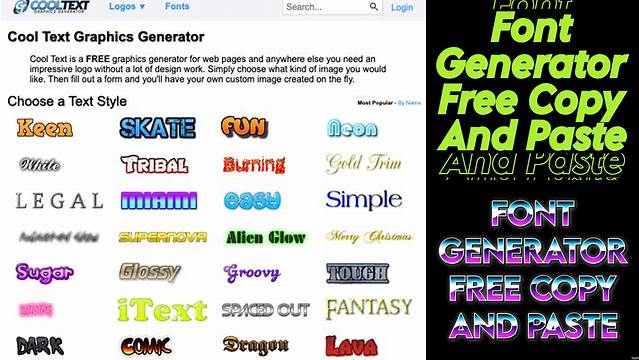
Best Free Font Generator For Copy And Paste: Create Unique Text!
Hey guys! Ever wanted to spice up your social media posts, school projects, or just add a little flair to your online presence? Well, you're in the right place! We're diving deep into the world of font generators that let you copy and paste awesome-looking text. No need to download anything or mess with complicated software. Let's get started!
Cool Text Generator Copy and Paste
Let's kick things off with the basics. A cool text generator allows you to create fancy, stylish text that you can easily copy and paste into your favorite apps and platforms. These generators come in handy when you want to make your content stand out, whether it's on Instagram, Twitter, Facebook, or even in your emails. Imagine using a unique font for your Instagram bio or creating eye-catching headlines for your blog posts. The possibilities are endless! These tools often include a variety of styles, from cursive and bold to wacky and futuristic, catering to diverse tastes and needs. The best part? They are incredibly user-friendly. All you have to do is type in your text, choose a style, and copy the result. Then, paste it wherever you need it! These generators save you time and effort, allowing you to produce visually appealing text without the need for complex design software. Furthermore, many cool text generators offer additional customization options, such as adjusting the size, color, and spacing of the text to achieve the perfect look. Whether you're a social media influencer, a content creator, or simply someone who enjoys adding a touch of creativity to their online interactions, a cool text generator can be an invaluable tool in your arsenal.
Fancy Font Generator for Copy and Paste
If you're looking to add a touch of elegance and sophistication to your text, a fancy font generator is just what you need. These generators offer a range of ornate and decorative fonts that can transform ordinary text into something truly special. Think calligraphy-inspired scripts, vintage-style lettering, and other elaborate designs that exude class and charm. Fancy fonts are perfect for invitations, greeting cards, website headers, and any other context where you want to make a statement. The key to using fancy fonts effectively is to choose styles that complement the overall aesthetic of your project. Overdoing it with too many elaborate fonts can make your content look cluttered and difficult to read. Instead, opt for a few carefully selected fancy fonts that enhance the visual appeal without sacrificing clarity. Furthermore, consider the legibility of the fonts, especially when using them for longer blocks of text. While fancy fonts can be visually stunning, they may not always be the most practical choice for body text. Experiment with different combinations of fonts and styles to find the perfect balance between aesthetics and readability. With a little creativity, you can use fancy font generators to create stunning visuals that capture attention and leave a lasting impression.
Stylish Font Generator for Copy and Paste
For those aiming to inject a bit of modern flair into their text, a stylish font generator is the way to go. These generators focus on trendy, contemporary font styles that are perfect for social media, branding, and digital marketing. From sleek sans-serif fonts to bold display fonts, you'll find a wide range of options to suit your unique style. Stylish fonts are all about making a statement and conveying a sense of sophistication and innovation. When choosing a stylish font, consider the overall message you want to communicate. A minimalist sans-serif font can convey a sense of simplicity and modernity, while a bold display font can grab attention and create a sense of excitement. Think about the context in which the font will be used and how it will resonate with your target audience. Stylish font generators often offer a range of customization options, allowing you to fine-tune the appearance of the text to match your brand identity. You can adjust the size, color, spacing, and other attributes to create a cohesive and visually appealing look. Furthermore, many stylish font generators provide previews of the text in different contexts, allowing you to see how it will look on various devices and platforms. This ensures that your text looks its best, regardless of where it's displayed.
Unique Font Generator Copy and Paste
Tired of seeing the same old fonts everywhere? A unique font generator can help you break free from the ordinary and create text that truly stands out. These generators offer a selection of unconventional and distinctive font styles that are sure to grab attention. Think hand-drawn fonts, pixelated fonts, and other quirky designs that add personality and character to your text. Unique fonts are perfect for branding, logos, and other applications where you want to create a memorable and distinctive visual identity. When using unique fonts, it's important to strike a balance between originality and readability. While you want your text to stand out, you also want to ensure that it's easy to read and understand. Avoid fonts that are too abstract or difficult to decipher, especially when using them for longer blocks of text. Instead, opt for fonts that are visually interesting but still legible at a glance. Furthermore, consider the overall tone and message you want to convey. A playful hand-drawn font can be perfect for a children's website, while a gritty pixelated font can add a touch of nostalgia to a retro-themed project. With a little creativity, you can use unique font generators to create visuals that are both eye-catching and effective.
Aesthetic Font Generator Copy and Paste
If you're all about creating visually pleasing and harmonious designs, an aesthetic font generator is your new best friend. These generators focus on fonts that are specifically designed to be beautiful and aesthetically pleasing. Think soft, flowing scripts, elegant serifs, and other refined styles that exude grace and sophistication. Aesthetic fonts are perfect for creating a sense of calm, serenity, and visual harmony in your designs. When choosing an aesthetic font, consider the overall mood and atmosphere you want to create. A light, airy font can convey a sense of openness and tranquility, while a bold, dramatic font can add a touch of excitement and intrigue. Think about the context in which the font will be used and how it will complement the other elements of your design. Aesthetic font generators often offer a range of customization options, allowing you to fine-tune the appearance of the text to match your personal style. You can adjust the size, color, spacing, and other attributes to create a cohesive and visually appealing look. Furthermore, many aesthetic font generators provide previews of the text in different contexts, allowing you to see how it will look on various devices and platforms. This ensures that your text looks its best, regardless of where it's displayed.
Free Font Style Generator Copy and Paste
Looking for a cost-effective way to create stylish text? A free font style generator is the perfect solution. These generators offer a wide range of font styles that you can use for free, without having to pay for expensive software or fonts. From basic sans-serif fonts to more elaborate display fonts, you'll find a variety of options to suit your needs. Free font style generators are ideal for personal projects, social media posts, and other applications where you don't want to spend a lot of money on fonts. While free font style generators may not offer the same level of customization and quality as paid options, they can still be a great resource for creating visually appealing text. Be sure to check the licensing terms of the fonts you use to ensure that you're using them legally. Some free fonts may only be licensed for personal use, while others may be licensed for commercial use as well. Furthermore, be aware that some free font style generators may contain ads or other unwanted software. Be sure to download fonts from reputable sources to avoid any potential security risks. With a little caution, you can use free font style generators to create stylish text without breaking the bank.
Online Font Generator Copy and Paste
For ultimate convenience and accessibility, an online font generator is the way to go. These generators are web-based tools that you can use directly in your browser, without having to download or install any software. Simply visit the website, type in your text, choose a style, and copy the result. Online font generators are perfect for users who want to create stylish text on the go, without being tied down to a specific device or operating system. The best part about online font generators is that they're often compatible with a wide range of browsers and devices. Whether you're using a desktop computer, a laptop, a tablet, or a smartphone, you can access these tools and create stylish text with ease. Furthermore, online font generators often offer a variety of features and options, such as the ability to preview the text in different contexts, adjust the size and color of the text, and even download the text as an image. This makes them a versatile and convenient tool for creating visually appealing content. However, be aware that some online font generators may require you to create an account or sign up for a subscription. Be sure to read the terms of service before using any online font generator to avoid any unwanted surprises.
Best Font Changer Copy and Paste
Sometimes, you might just want to quickly swap out a font for something different without having to retype everything. That's where the best font changer comes in handy! These tools let you easily change the font of existing text with just a few clicks. They're super useful for tweaking documents, presentations, or even social media posts where you want to give your words a fresh new look. Imagine you've written a blog post but the font just isn't working. Instead of starting over, you can use a font changer to try out different styles until you find the perfect fit. Plus, many font changers offer a preview feature so you can see how the text will look before you commit to the change. Some even let you upload your own custom fonts for even more creative control! Whether you're a designer, a writer, or just someone who likes to play around with fonts, the best font changer can save you tons of time and effort.
Font Text Generator Copy and Paste
Need to whip up some eye-catching text for a project? A font text generator is your go-to tool! These generators let you create stylized text in a variety of fonts and designs, all ready to be copied and pasted wherever you need them. They're perfect for adding a unique touch to social media profiles, creating attention-grabbing headlines, or jazzing up presentations. Think of it like having a mini design studio at your fingertips. You can experiment with different fonts, sizes, colors, and effects to create the perfect look for your message. Plus, many font text generators offer a wide range of pre-designed templates that you can customize to your liking. Whether you're a seasoned designer or a complete beginner, a font text generator makes it easy to create professional-looking text in minutes.
Small Font Generator Copy and Paste
Sometimes being small helps to convey the message. Add a bit of mystery with a small font generator. Copy and paste is so convenient to use and add a variety of small fonts to your online presence. Create a look that no one else has.
So there you have it! A comprehensive guide to the best free font generators for copy and paste. Whether you're looking to add a touch of elegance, a bit of modern flair, or just something completely unique, these tools have got you covered. Happy creating!